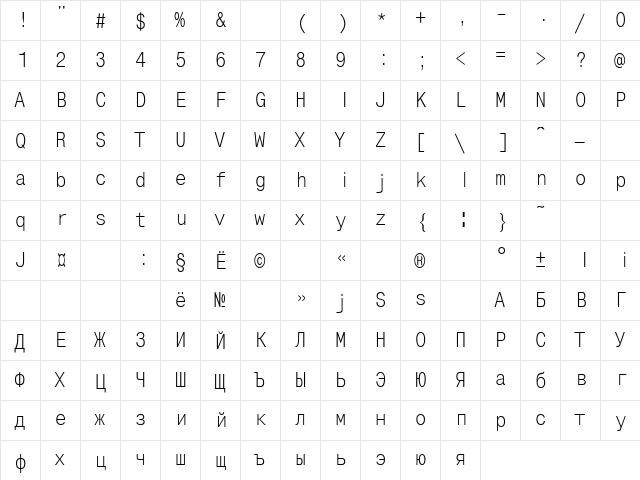
Ukrainian?MonoCondensed Regular
Design Context for Ukrainian?MonoCondensed Typeface
Ukrainian?MonoCondensed uses fixed-width spacing throughout, giving it the structured, systematic character associated with coding environments and technical documentation.
Pro Tip: Use Ukrainian?MonoCondensed with slightly increased line-height for extended reading — fixed-width spacing can feel dense in longer passages without extra breathing room.